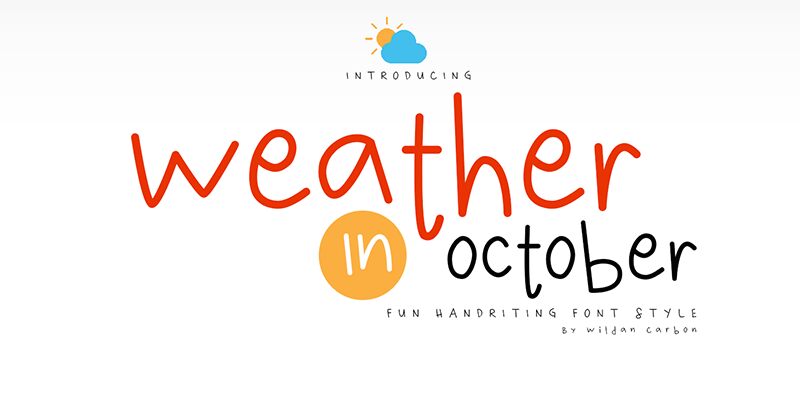
The Weather in October font, created by Wildan Suprian Syah, is a beautifully handwritten typeface that is perfect for a variety of creative projects. The light weight of the font gives it an airy and delicate feel that would be ideal for invitations, greeting cards, or other printed materials where elegance is key. Its playful style also makes it suitable for branding materials and logos that want to show off a more personal touch. With its organic curves and flowing lines, the Weather in October font can add an artistic flair to any project that needs a touch of whimsy.